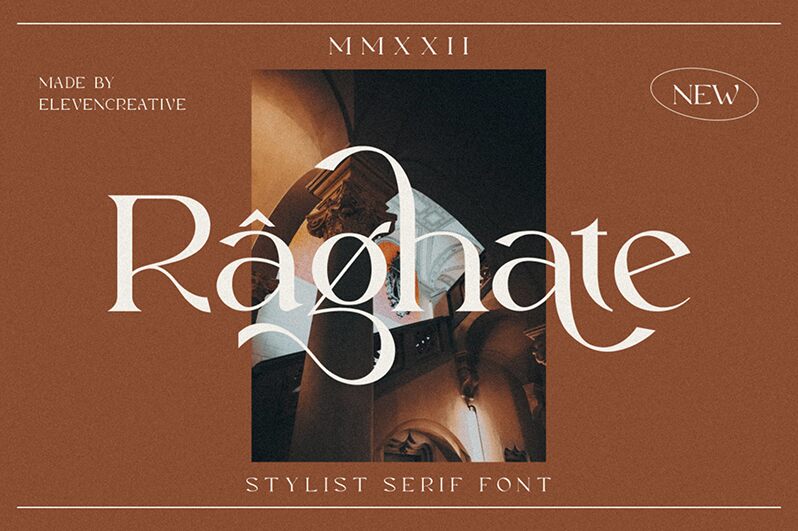
Raghate
Raghate font by Typegoals Labs combines elegance and sophistication in a classic serif style. With ornamental elements that add an artistic flair, this font carries a vintage touch suitable for various design needs. Its refined appearance makes it a perfect choice for projects that demand a timeless and polished look.
This free serif font is ideal for logos, branding, packaging, print designs, posters, magazines, book covers, invitations, greeting cards, digital designs, social media graphics, and personal projects.